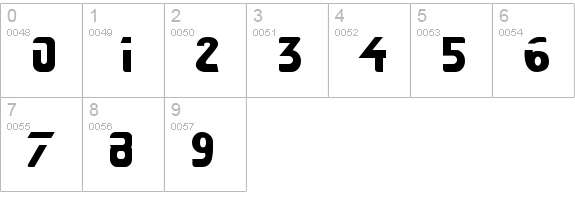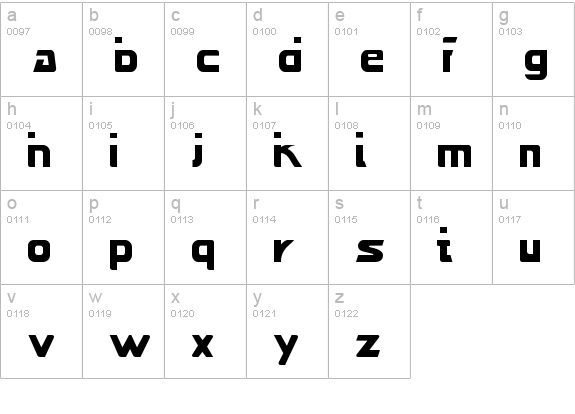
Next Star Font Details
Next Star font is a modern and elegant typeface that exudes sophistication and style. With its sleek lines and contemporary design, this font is perfect for a wide range of projects, from branding to advertising to digital content. The clean and crisp letterforms make Next Star font highly versatile, suitable for both display and text use. The best part? Next Star font is completely free to download at FontsMarket.com. This means you can access this high-quality typeface without breaking the bank, making it a great choice for designers on a budget or anyone looking to add a touch of class to their projects without the hefty price tag. Whether you're designing a logo, creating a poster, or crafting a website, Next Star font is sure to elevate your work and make a lasting impression. Download it today and see for yourself why this font is the next star in the world of typography.